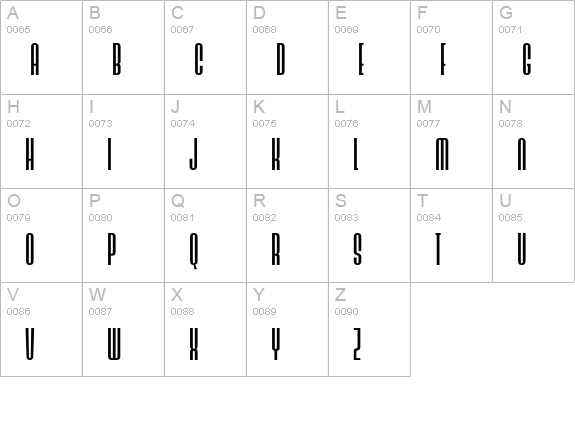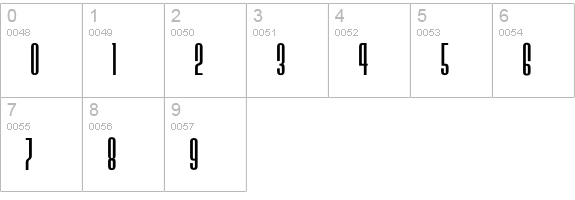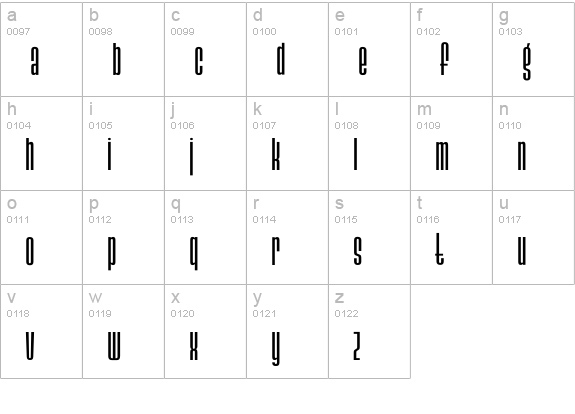
Ainsdale-Medium is a balanced, medium-weight variant in the Ainsdale typeface family \xE2\x80\x94 well suited to sub-headlines, navigation, and balanced editorial work.
Ainsdale-Medium is a versatile and stylish font that effortlessly combines elegance with readability. With its clean lines and balanced proportions, this typeface is perfect for a wide range of design projects, from branding to editorial design. The medium weight of Ainsdale-Medium strikes the perfect balance between impact and subtlety, making it ideal for headlines, subheadings, and body text alike. What sets Ainsdale-Medium apart is that it is not only a high-quality font but also freely available for download at FontsMarket.com. This means that you can easily access and use this beautiful typeface in your projects without any cost involved. Whether you're a seasoned designer looking for a new go-to font or a beginner exploring typography for the first time, Ainsdale-Medium is sure to elevate your designs with its timeless appeal and modern charm. Download it today and see for yourself the difference it can make in your creative endeavors.